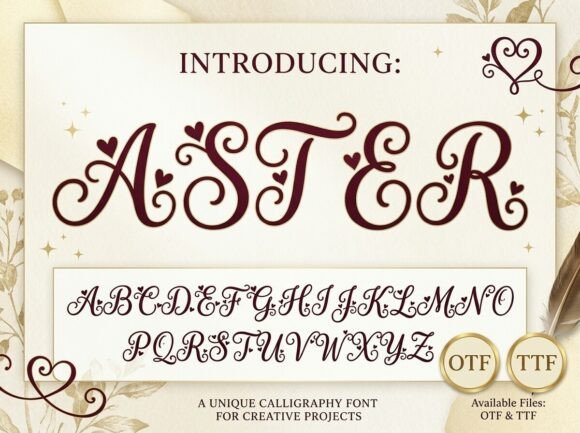
The Sweetest Font You’ll Fall in Love With: A Deep Dive into Aster Font
I’ll never forget the time I was working on a Valentine’s Day project for a client, and I just couldn’t find the perfect font to capture the sweetness and romance of the occasion. The client wanted something that would make their customers’ hearts skip a beat, but every font I tried seemed either too bland or too over-the-top. That’s when I stumbled upon Aster Font, and it was love at first sight! 💘
Aster Font is a unique calligraphy font that’s meticulously designed for creative projects with a heartbeat. Its classically structured script letterforms are adorned with a delightful “showering” of tiny hand-drawn hearts, making it the perfect choice for personalized wedding stationery, boutique Valentine’s Day branding, independent florist logos, and heartwarming editorial headers.
What I Love About Aster Font ✨
• ✨ Unique and whimsical design that’s sure to capture attention
• ✅ Classically structured script letterforms with a touch of romance
• ✅ Delightful “showering” of tiny hand-drawn hearts adds a playful touch
• ✅ Whimsical swashes and rhythmic, swirling terminals for added flair
While Aster Font is a stunning addition to any design project, there are a few things to keep in mind:
• ⚠️ Some of the more intricate swashes and flourishes may not display well at smaller font sizes
• 🤔 The font’s playful nature may not be suitable for more formal or corporate design projects
The Story Behind Aster Font
Aster Font was designed with love and care by a talented type designer who wanted to create a font that would capture the essence of romance and whimsy. Inspired by classic calligraphy and the beauty of hand-drawn hearts, Aster Font is the perfect choice for designers and crafters looking to add a touch of sweetness to their projects.
What is Aster Font best used for? Aster Font is perfect for personalized wedding stationery, boutique Valentine’s Day branding, independent florist logos, and heartwarming editorial headers.